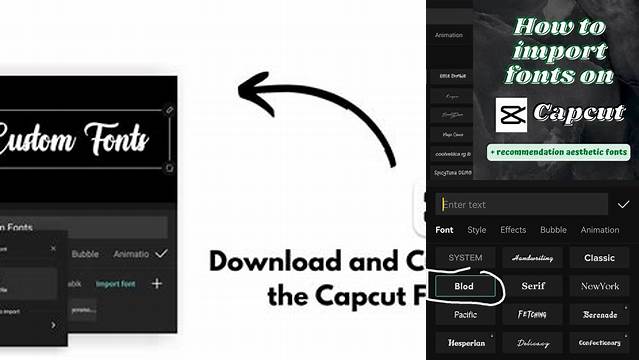
Cool Fonts For CapCut: Copy & Paste Guide
Hey everyone! If you're diving into the world of video editing with CapCut, you probably know that fonts can seriously elevate your videos. Want to make your videos stand out? You're in the right place. This guide is all about fonts for CapCut copy and paste. We'll explore how you can spice up your CapCut projects with unique and stylish fonts that aren't just the basic ones. So, let's get started and make your videos pop! We will be discussing everything from finding cool fonts to successfully copying and pasting them into your CapCut projects. Let's get those creative juices flowing and make some awesome videos!
1. Understanding the CapCut Font Landscape
Alright, guys, before we jump into the nitty-gritty of fonts for CapCut copy and paste, let's take a moment to understand what CapCut offers by default. CapCut, being the user-friendly video editing app that it is, comes with a decent selection of built-in fonts. These are great for getting started, but let's be honest, they can sometimes feel a bit... basic. They're perfect for simple text overlays, titles, and credits, but if you're aiming for a specific aesthetic or a more professional look, you'll quickly find yourself wanting more. That's where the magic of custom fonts comes into play. Knowing the limitations of the built-in fonts is the first step to realizing you need fonts for CapCut copy and paste. The pre-installed fonts cover a wide range of styles. You've got your clean sans-serifs, elegant serifs, and some more playful options. They're generally easy to read and work well in various video contexts. However, the variety is somewhat limited. You might struggle to find the perfect font to match your video's mood or theme. This limitation is where the desire for fonts for CapCut copy and paste originates, right? So, to take your video editing to the next level, you need to explore external font options. Now, understanding the limitations helps us appreciate the value of expanding our font library. By understanding the default offerings, you can make a more informed decision about the types of custom fonts you want to add. This proactive approach allows you to create videos that are not only visually appealing but also align with your creative vision. It's like having an extra tool in your toolbox.
2. Why You Need More Than the Default Fonts
So, why should you care about fonts for CapCut copy and paste when CapCut already gives you some? Well, the built-in fonts are like a starter kit. They're functional, but they lack the personality and versatility you might need for more complex projects. Imagine you're creating a video with a vintage theme. Would you use a modern, clean font? Probably not. You'd want something with a retro feel, something that aligns with the overall aesthetic. That's where custom fonts come in. They allow you to fine-tune your video's visual language. Adding a unique font can completely change the vibe of your video. A playful, handwritten font can make your content feel more approachable and friendly. A bold, sans-serif font can create a sense of professionalism and authority. The possibilities are practically endless! The more diverse your font collection is, the better prepared you'll be to tackle any video project that comes your way. Beyond the visual appeal, using custom fonts can help you stand out from the crowd. Many content creators use the same default fonts, making their videos look generic. If you want to create something memorable, you need to think about your visual branding. Incorporating unique fonts is a simple yet effective way to do this. Think of it as an extension of your brand identity. A unique font helps build brand recognition. Every time someone sees your video, they'll instantly recognize your signature style. And that's a powerful thing in the world of content creation. Think of the iconic brands. They all use recognizable fonts. So, you should too!
2.1. Elevating Your Video's Aesthetic
When it comes to video editing, selecting the right font can elevate your video's aesthetic, making it more visually appealing and engaging for your audience. Fonts for CapCut copy and paste enable you to move beyond the standard offerings and introduce unique typefaces that resonate with the overall theme and mood of your project. Imagine you are creating a promotional video for a sophisticated fashion brand. A clean, elegant serif font can project an image of luxury and refinement. Conversely, if your video targets a younger audience, a playful, modern sans-serif font could be more appropriate, reflecting energy and trendiness. By carefully choosing your fonts, you're not just adding text; you're crafting a visual narrative that complements your content. The right font choices create a cohesive design that captures the viewer's attention. This attention to detail makes your videos more professional and helps in conveying your message. This thoughtful approach is the key to making your videos visually stunning, ensuring your content stands out. Moreover, the availability of fonts for CapCut copy and paste allows you to experiment with various styles, finding the perfect font that aligns with your project's artistic vision. You can also create a specific visual style by consistent use of the same font across all your video projects, which supports and strengthens your brand identity.
2.2. Boosting Brand Identity with Unique Typography
In the competitive landscape of digital content creation, establishing a strong brand identity is crucial for long-term success. One effective way to do this is by leveraging unique typography in your videos. Using fonts for CapCut copy and paste provides you with the ability to select fonts that reflect your brand's personality and values, making your content more memorable. Imagine you are a travel blogger and your brand is all about adventure and exploration. A rugged, slightly distressed font could convey a sense of spontaneity and wanderlust. This font choice is much more effective than the basic fonts in conveying your brand's essence. The more unique your fonts, the more your viewers will remember your brand. Consistency is key in building brand recognition. By using the same font or font family across all your video content, you reinforce your brand's visual identity, creating a sense of familiarity and trust. This repetition helps your audience recognize your content instantly, making them more likely to engage with it. A distinctive font can become synonymous with your brand, much like the logos of famous companies. Think of how easily you recognize the typography associated with Coca-Cola or Disney. By investing in unique fonts, you are not just enhancing the visual appeal of your videos; you are also contributing to the overall strength and coherence of your brand. Your font choice is a reflection of your brand’s soul!
3. Finding Free Fonts for CapCut
- BeFonts: Similar to DaFont, BeFonts has an extensive library of free fonts. You can easily find various styles and themes to suit your video's needs. Always check the license before using any font. Most free fonts are free for personal use, but some might require a commercial license if you plan to use them for business purposes. Knowing the licensing terms ensures you're using the fonts legally and ethically. I highly recommend checking the license terms before downloading and using any font. You can often find this information on the website where you download the font.
3.1. Top Websites to Download Fonts
When it comes to finding fonts for CapCut copy and paste, the internet is brimming with resources. Knowing where to look can significantly streamline your search for the perfect typeface. Start with Google Fonts, a vast and reputable library, which offers a variety of fonts free of charge. This platform is a great starting point due to its user-friendly interface and extensive selection. DaFont is another popular option, known for its extensive collection of fonts, organized by different categories. This allows you to find a font quickly that suits your video’s specific needs, such as a playful script for a kid's video or a clean sans-serif for a professional presentation. Another good source is Font Squirrel, which focuses on providing fonts that are free for commercial use. This is especially beneficial if you plan to use your videos for business or promotional purposes. Always check the license agreement to confirm how the font can be used. Creative Market and Envato Elements are also great options, offering premium fonts along with other creative assets. Many of these sites offer free fonts as part of their subscription or as a promotional item, allowing you to access high-quality typography without a significant investment. Lastly, explore Behance and Dribbble, platforms where designers showcase their work. Here, you might find downloadable free fonts or links to where you can download them. Remember to explore these websites, read user reviews, and keep your search focused on finding fonts.
3.2. Understanding Font Licenses
Before downloading and using fonts for CapCut copy and paste, it's vital to understand font licenses. Font licenses determine how you can use a font, including whether it's free for personal or commercial use. Many websites offer free fonts, but each font comes with a specific license, and not all licenses are created equal. Personal Use License: This license typically allows you to use a font for non-commercial projects, such as personal videos, school projects, or hobby-related content. Commercial Use License: This license allows you to use a font for business purposes, including promotional videos, marketing materials, and other revenue-generating content. Always check the license agreement to see if your project falls under personal or commercial use. Font licenses might also specify limitations on how you can modify a font. Some licenses may allow you to adjust the font's size, color, and spacing, but they may prohibit you from altering the font's design or creating derivative works. Some licenses require you to give attribution to the font designer or the website from where you downloaded the font. This is generally a good practice, even if the license doesn't explicitly require it. Always read the license terms carefully before downloading and using a font, ensuring you comply with all the terms and conditions. Failing to do so can lead to legal issues, especially when using fonts for commercial projects. Check the license for font modifications and proper attribution.